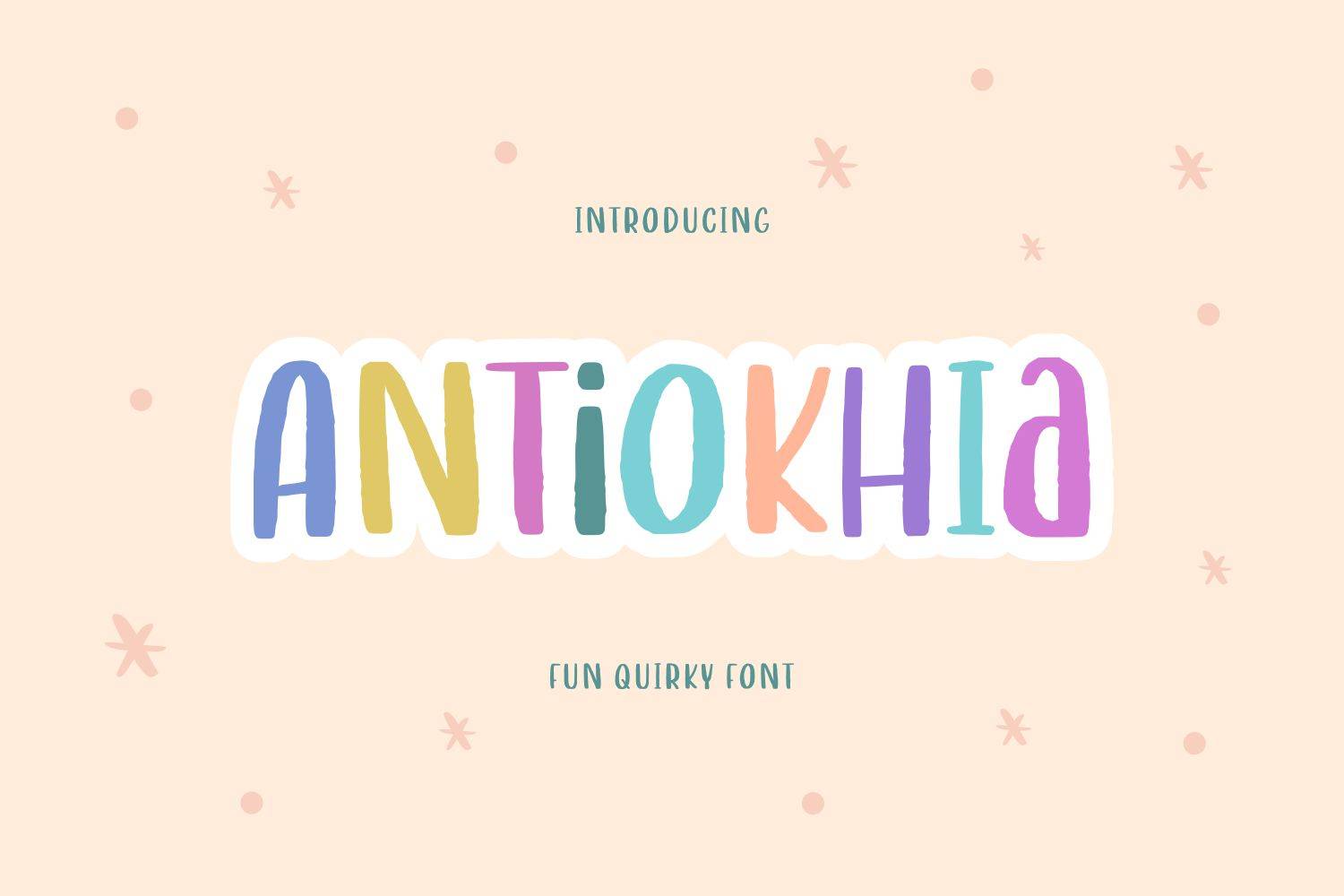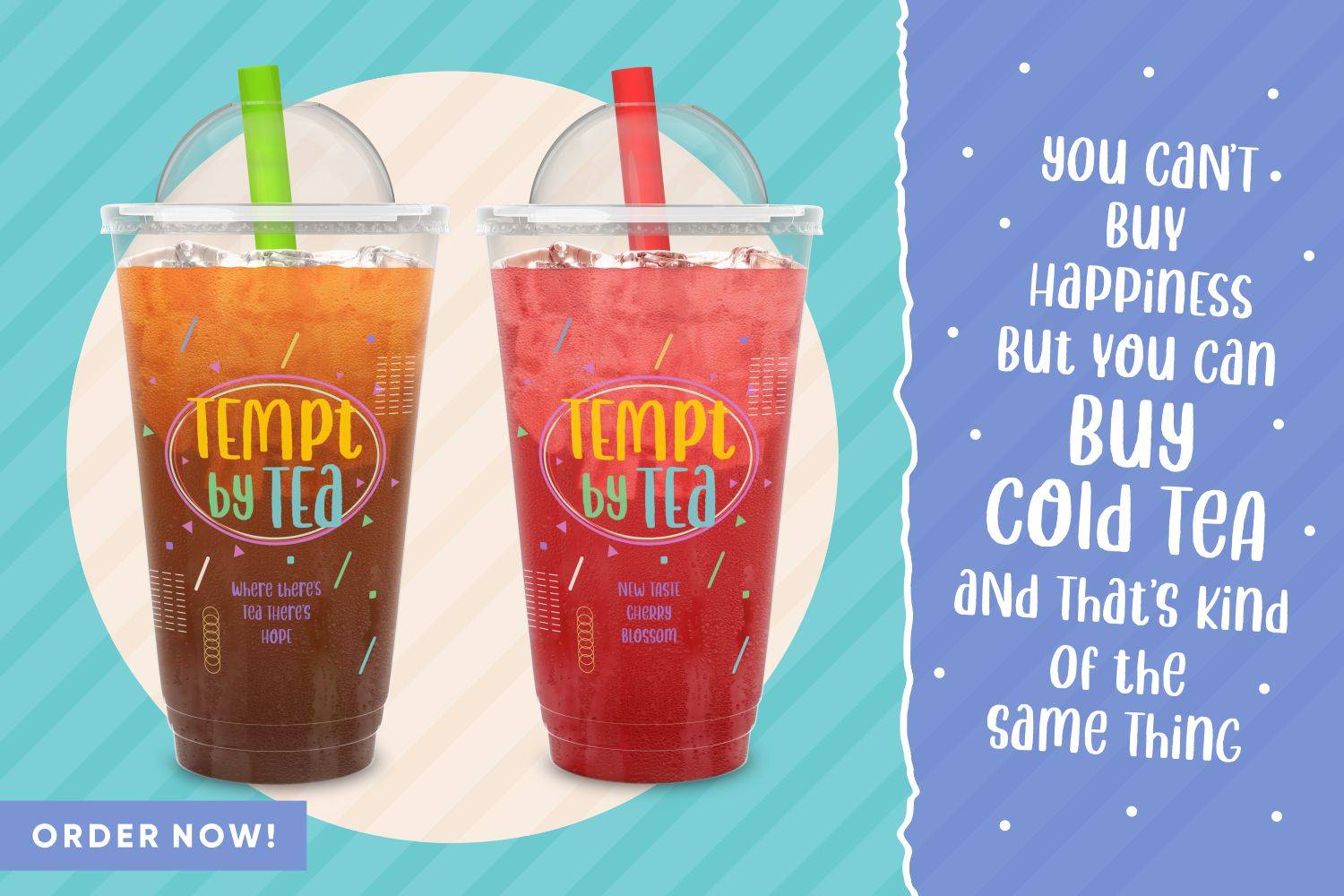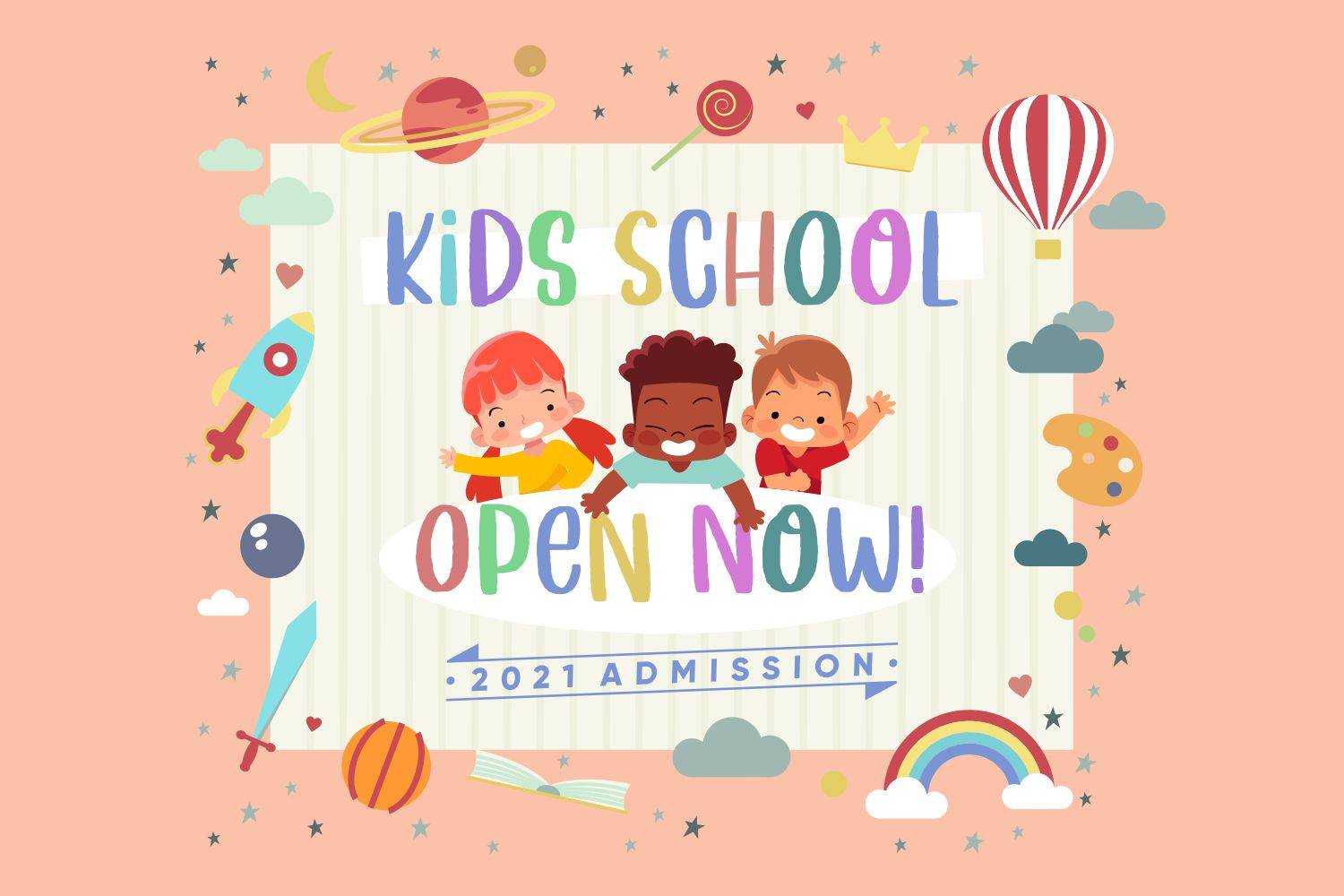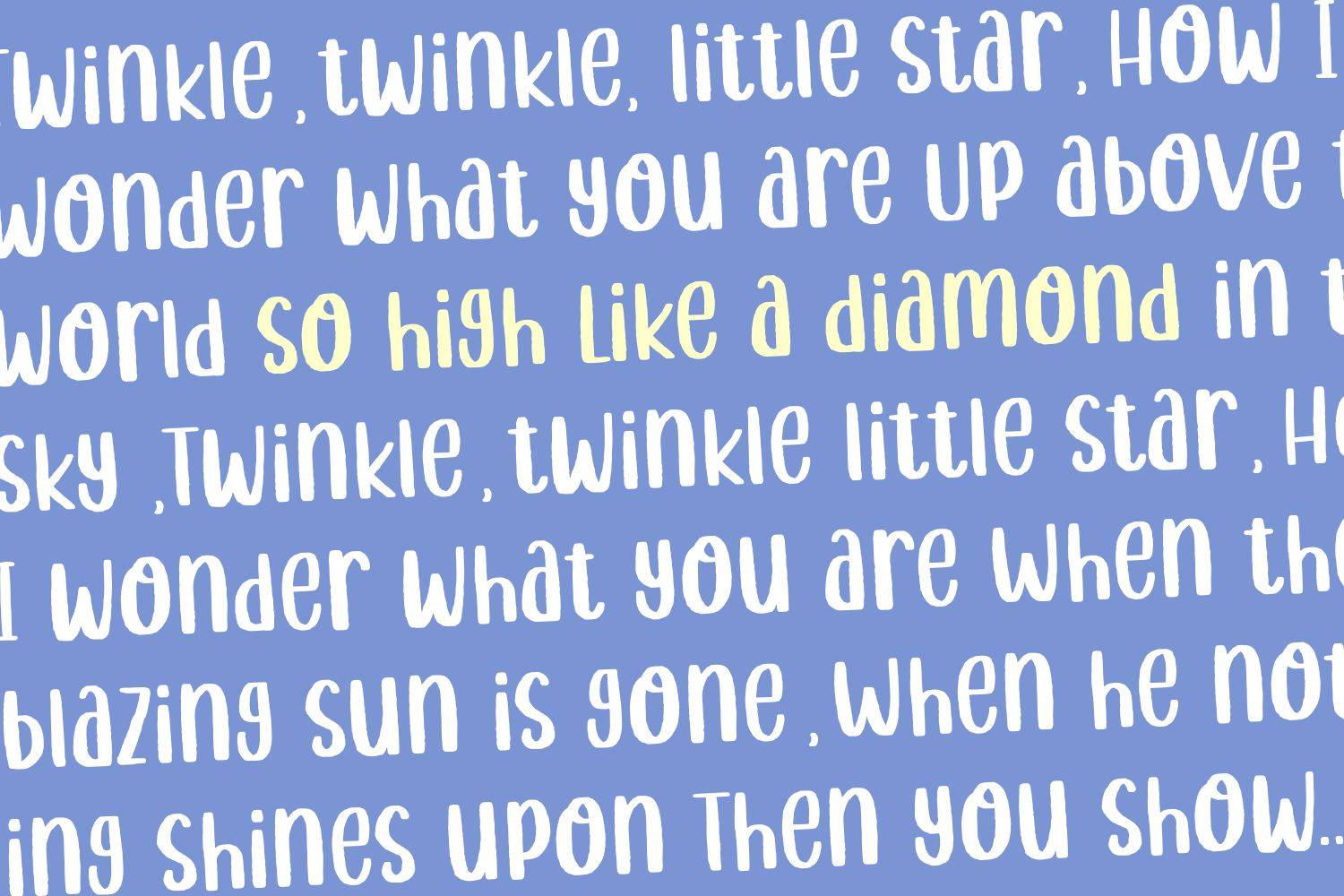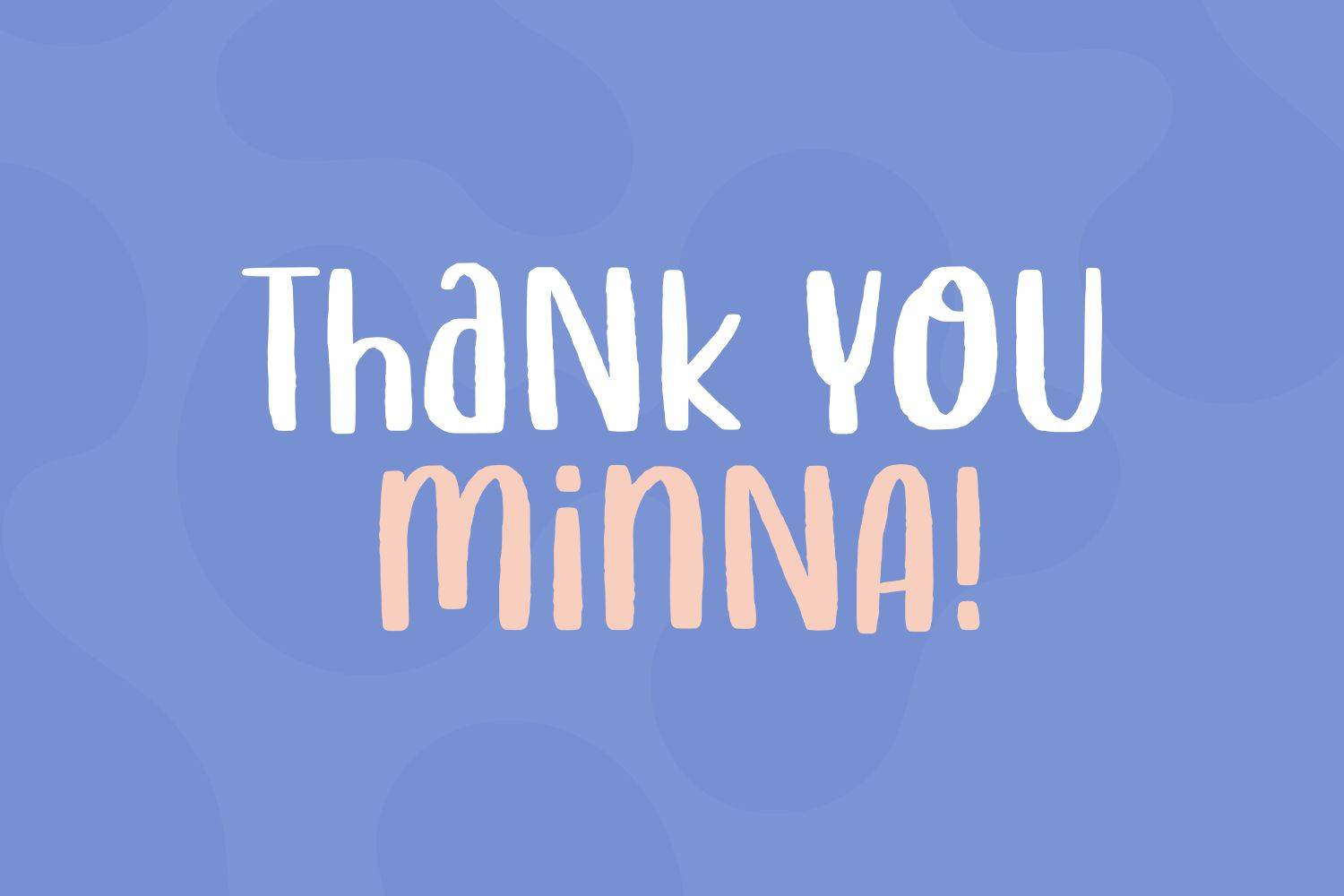
Antiokhia is a playful and informal sans serif font with a hand-drawn feel, characterized by its tall, narrow letterforms and uneven stroke widths. Its casual style and lively personality make it ideal for creative projects, children’s designs, and branding that aims to appear approachable and friendly. This font works well for headlines, packaging, and any design needing a personal touch and energetic vibe.
Antiokhia Font
About Antiokhia Font